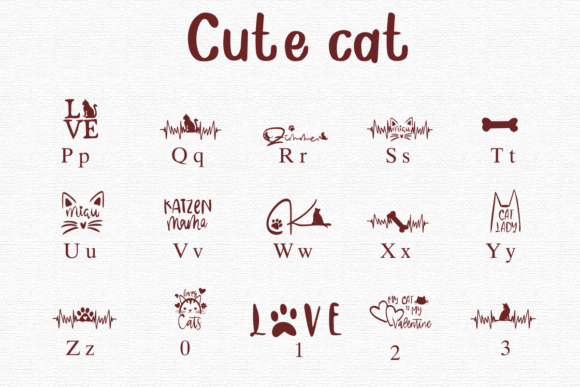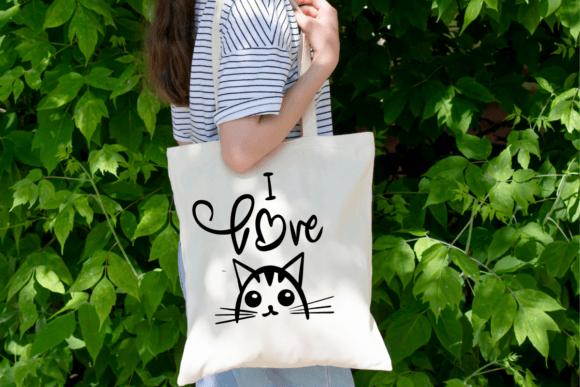
Cute Cat Font
Sure! “Cute Cat” is a fun dingbats font featuring adorable cat illustrations and charming cat quotes. Perfect for adding a playful touch to any design that needs a sprinkle of feline charm!